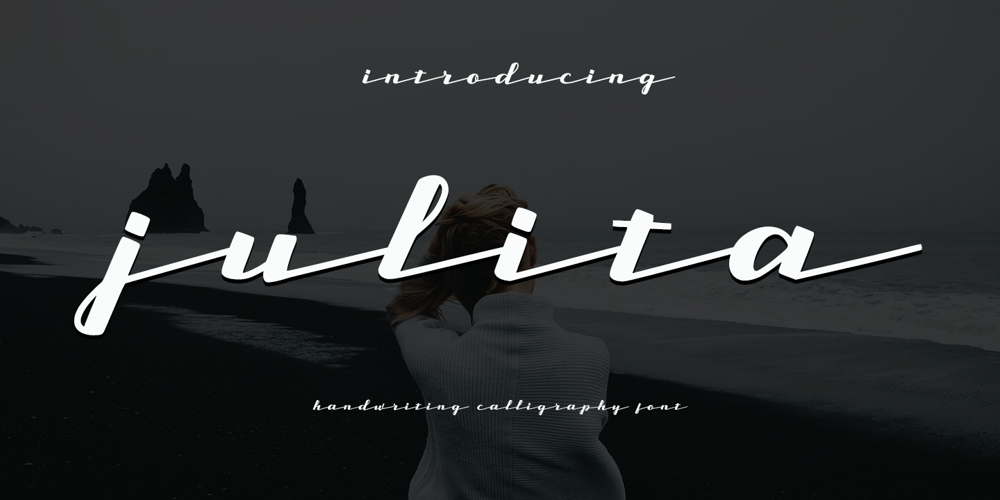
Julita
Julita font
Julita Font Family was designed by Muhammad Zaini and published by Cocodesign. Julita contains 1 styles and family package options. Julita Handwriting is a modern calligraphy design, including Regular. This font is casual and beautiful . Can be used for various purposes. such as logos, product packaging, wedding invitations, branding, headlines, signage, labels, signatures, book covers, posters, quotes, and more.